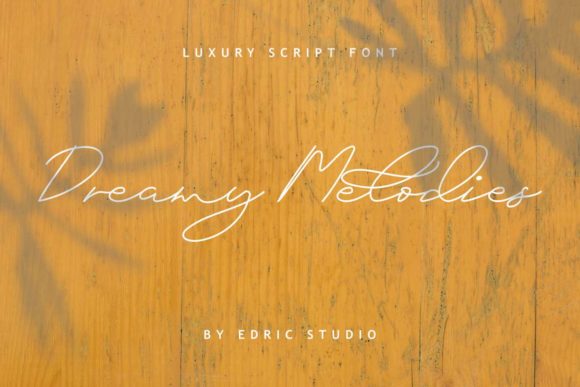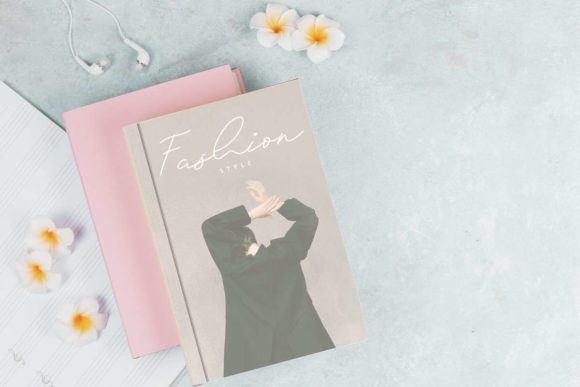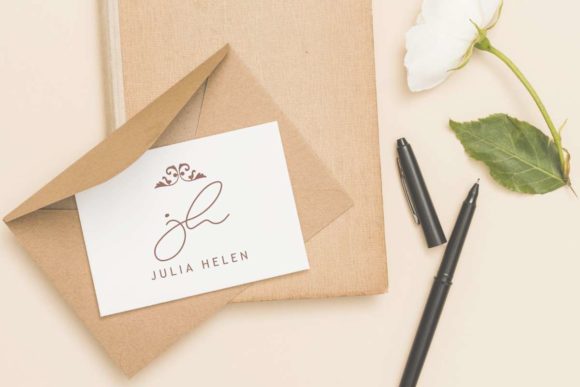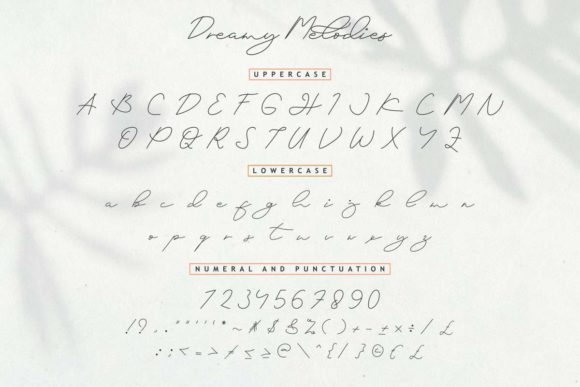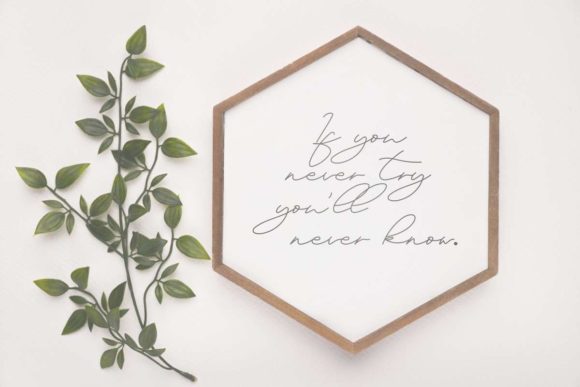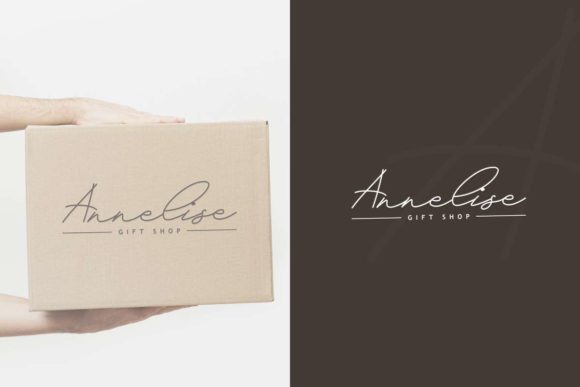
Dreamy Melodies Font: Elevate Your Designs with a Relaxed, Romantic Touch
Are you a designer or crafter looking for a font that can add a touch of romance and uniqueness to your projects? Look no further than the Dreamy Melodies Font. This beautiful, handwritten font is designed to bring a relaxed and romantic feel to your designs, making it perfect for a wide range of creative projects.
What Makes Dreamy Melodies Font So Special?
Dreamy Melodies is a one-of-a-kind, handwritten font that boasts a unique and beautiful touch. Each letter is carefully crafted to bring a sense of elegance and sophistication to your designs. The font is PUA encoded, which means you can easily access all of the glyphs and swashes, giving you endless possibilities for creative expression.
Whether you’re working on a branding project, creating social media graphics, or designing invitations and stationery, Dreamy Melodies Font is the perfect choice. Its relaxed and romantic feel makes it ideal for projects that require a personal touch, such as wedding invitations, baby shower cards, and other special occasion designs.
Key Features of Dreamy Melodies Font
- Unique and Handwritten: Each letter is carefully crafted to bring a unique and beautiful touch to your designs.
- PUA Encoded: Easily access all glyphs and swashes to take your designs to the next level.
- Relaxed and Romantic: Adds a touch of elegance and sophistication to your projects.
- Multi-Language Support: Perfect for designers and crafters working on projects in various languages.
Here are a few ideas for using Dreamy Melodies Font in your designs:
- Wedding Invitations: Add a romantic touch to your wedding invitations and save-the-date cards.
- Social Media Graphics: Use Dreamy Melodies Font to create eye-catching social media graphics that showcase your brand’s personality.
- Stationery and Invitations: Create beautiful stationery and invitations for special occasions, such as baby showers and birthday parties.
Why Designers and Crafters Love Dreamy Melodies Font
Dreamy Melodies Font has quickly become a favorite among designers and crafters. Here are a few reasons why:
- Unique and Versatile: The font’s unique and handwritten style makes it perfect for a wide range of design projects.
- Easy to Use: The PUA encoding makes it easy to access all glyphs and swashes, even for those with limited design experience.
- Beautiful and Elegant: The font’s relaxed and romantic feel adds a touch of elegance and sophistication to any design.